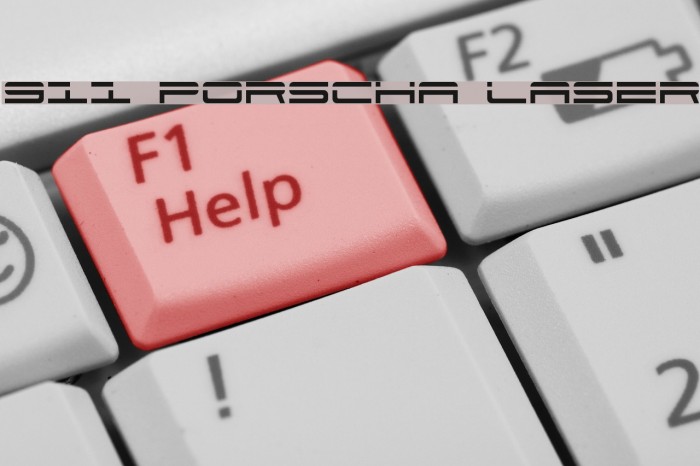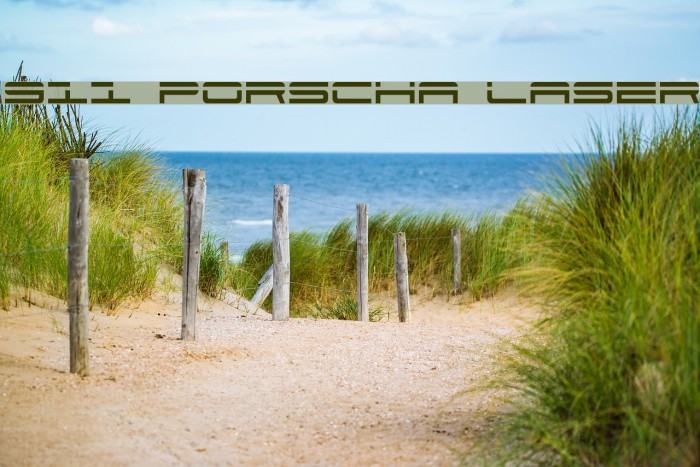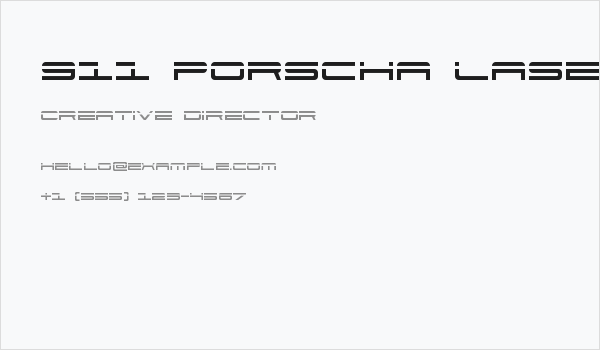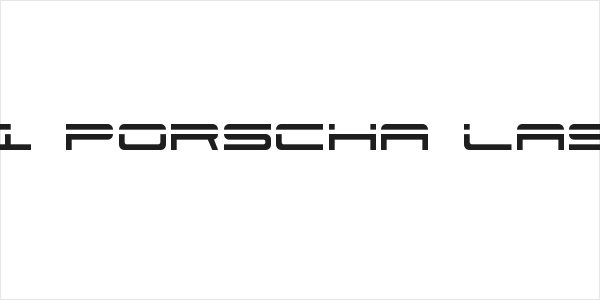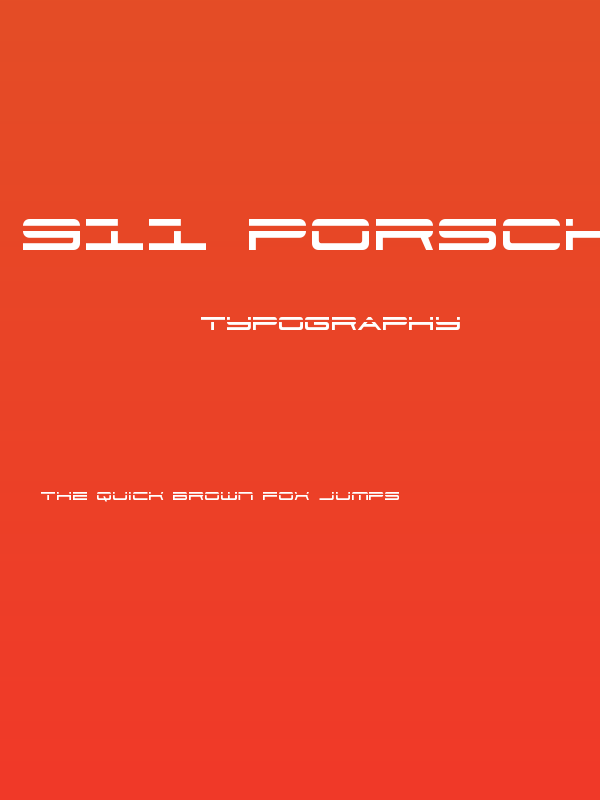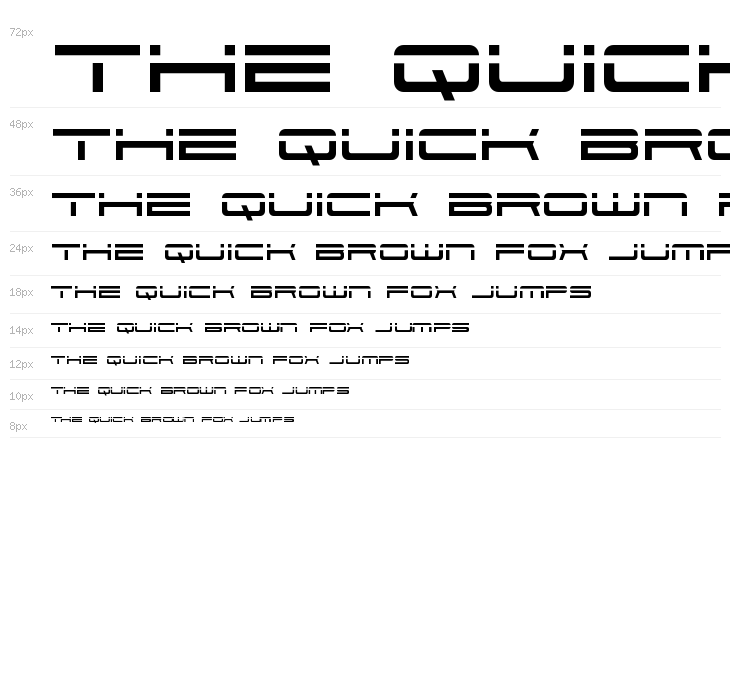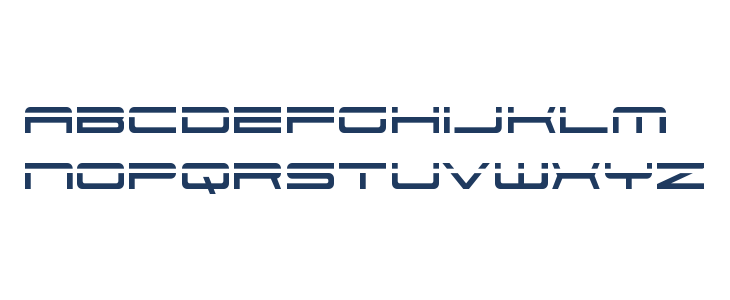
911 Porscha Laser Font
911 Porscha Laser Description
This font features a futuristic and geometric design, characterized by its angular and precise letterforms. The uppercase and lowercase letters maintain a consistent style, with sharp edges and a mechanical feel. The numerals and special characters follow the same design principles, ensuring a cohesive look across all elements. The font's structure is clean and modern, with a slight industrial touch, making it suitable for technology-related projects or branding that requires a sleek and contemporary appearance.
| Proposed Projects | Ideal for technology branding, sci-fi themed designs, automotive advertisements, and modern digital interfaces. |